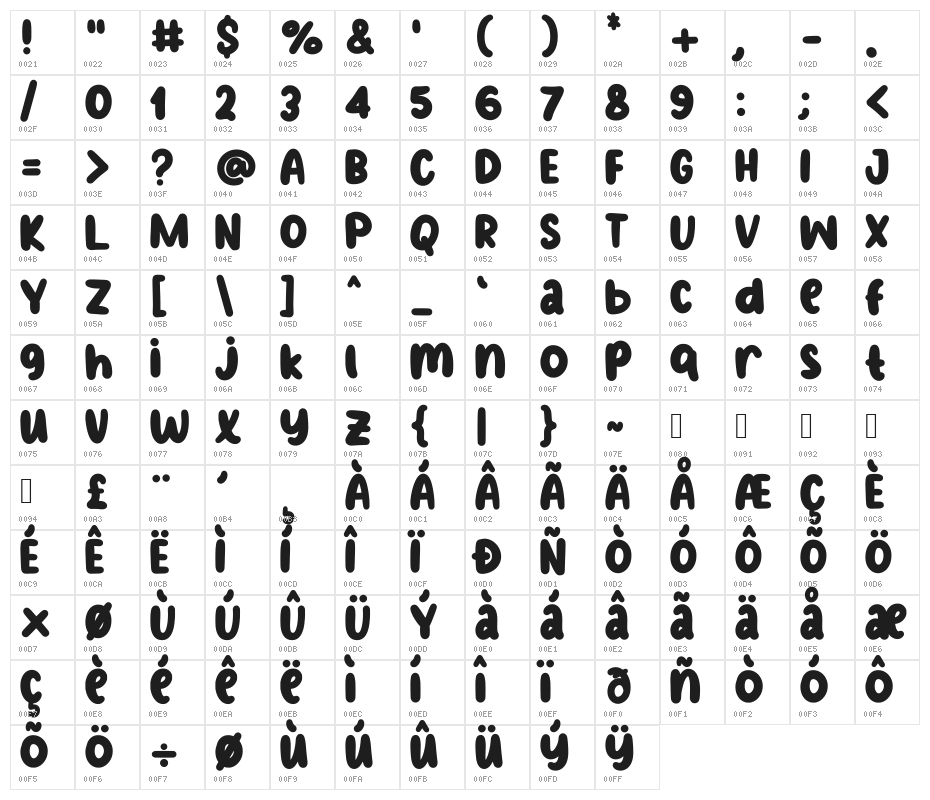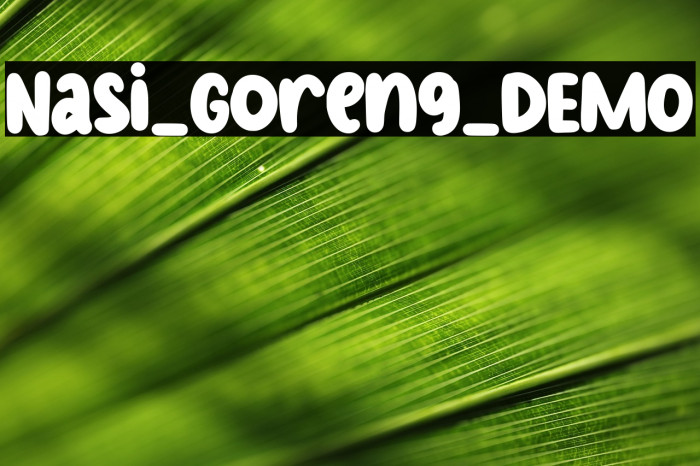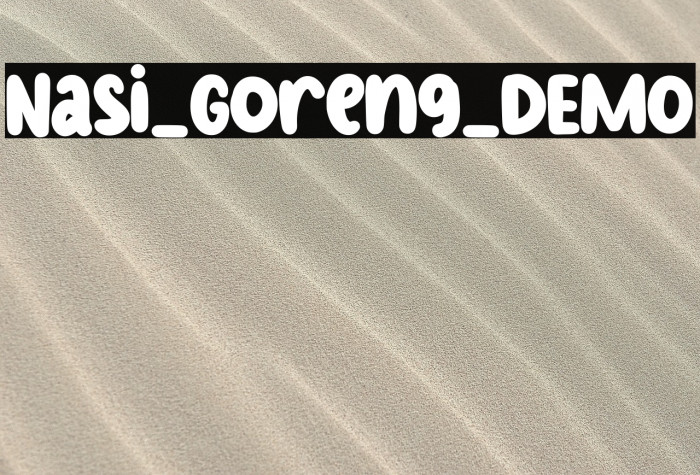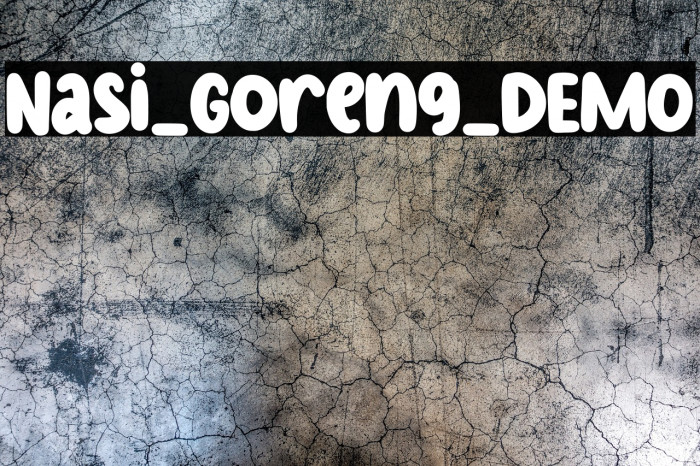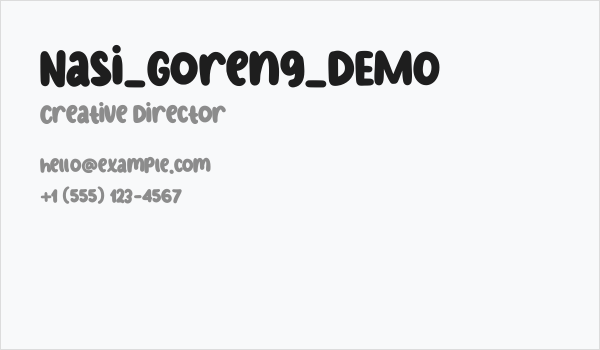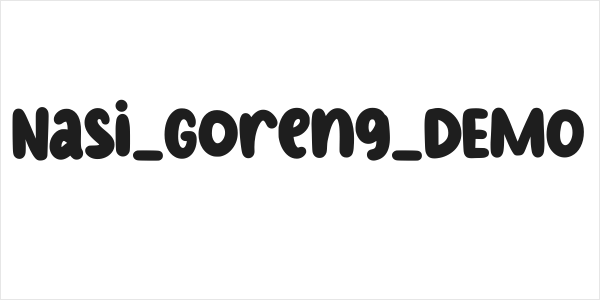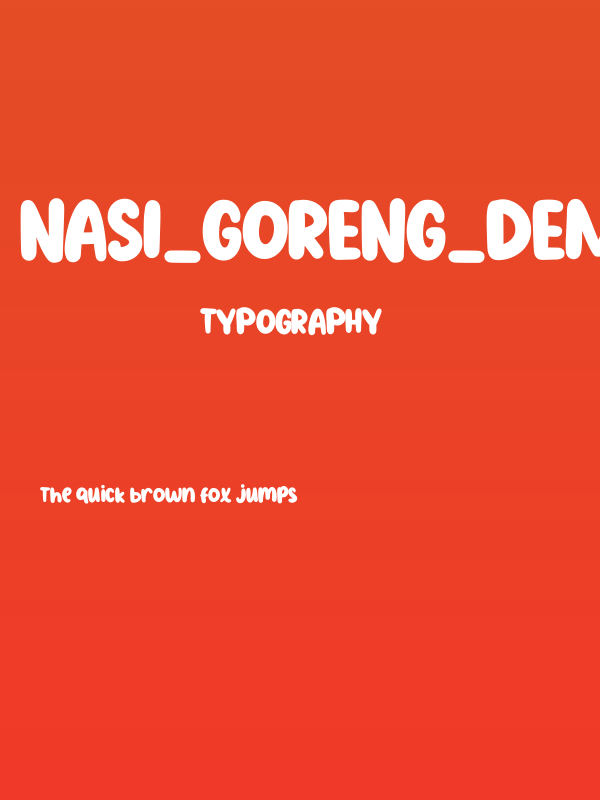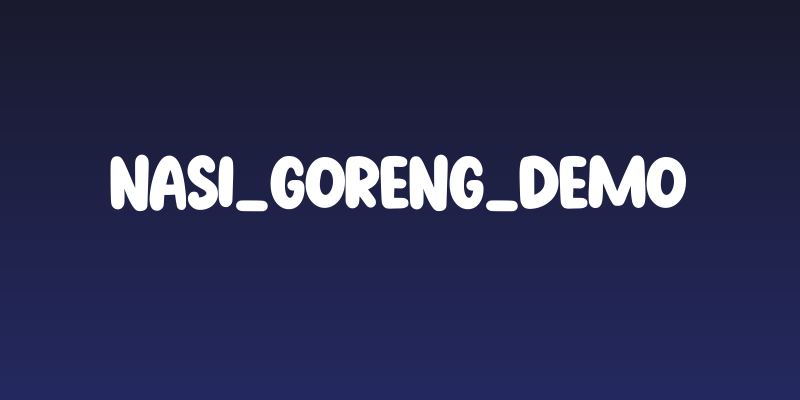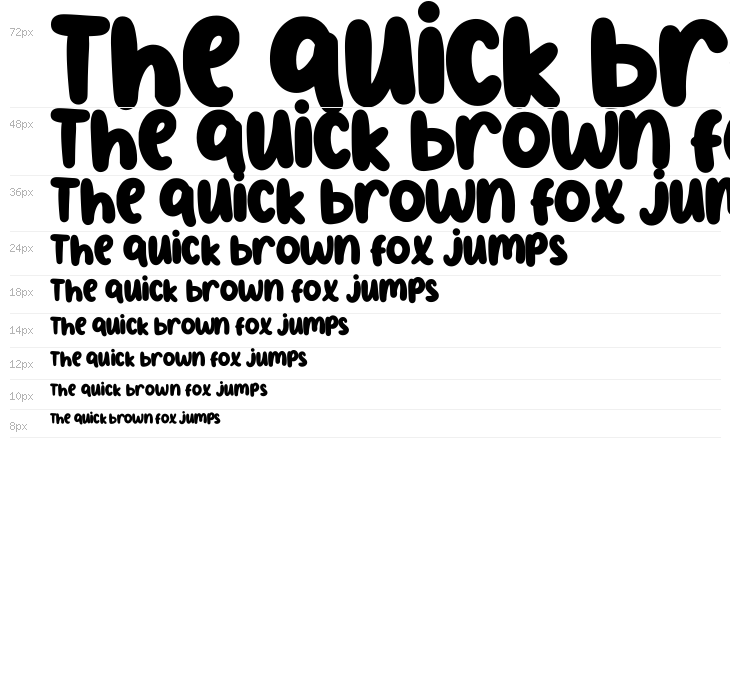
Nasi_Goreng_DEMO Font
Nasi_Goreng_DEMO Description
| Overall Style | Playful, Decorative, Hand-drawn |
| Use Case | Headlines, Posters, Logos, Children's materials |
| Proposed Projects | Children's books, posters, party invitations, branding for playful products, comic titles. |